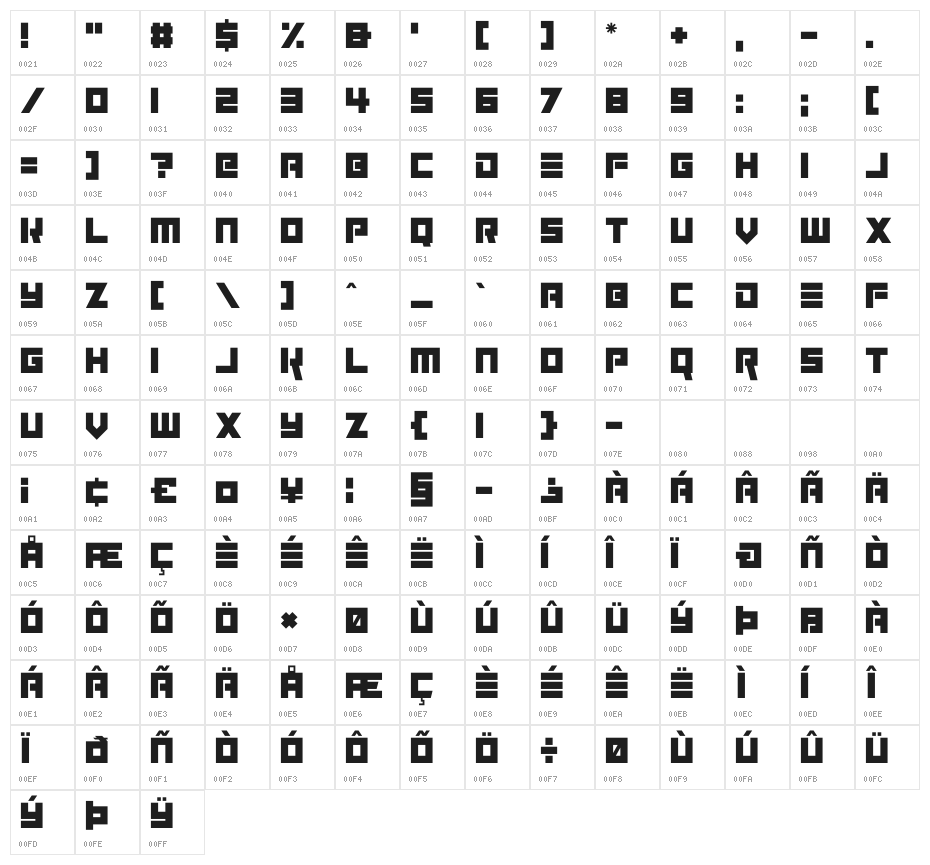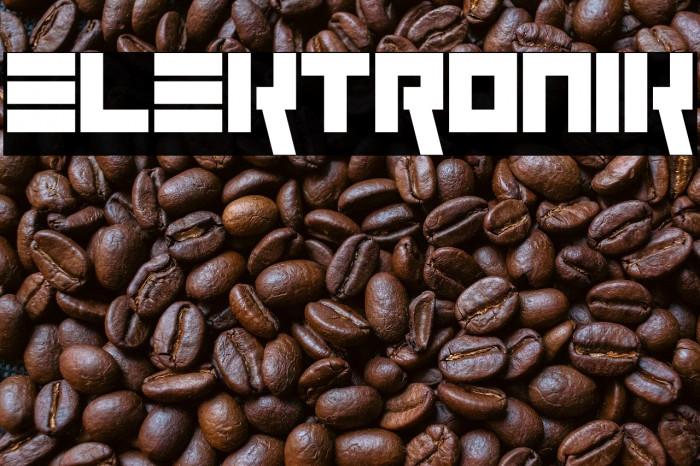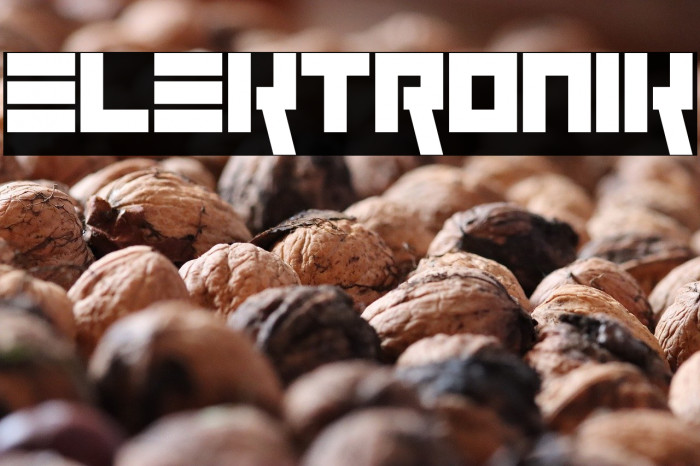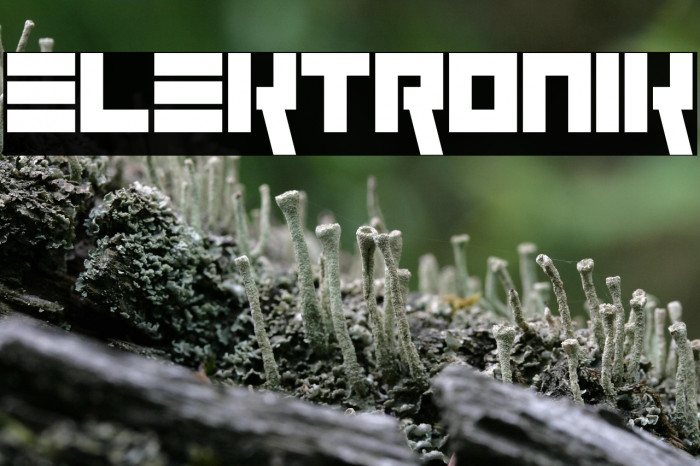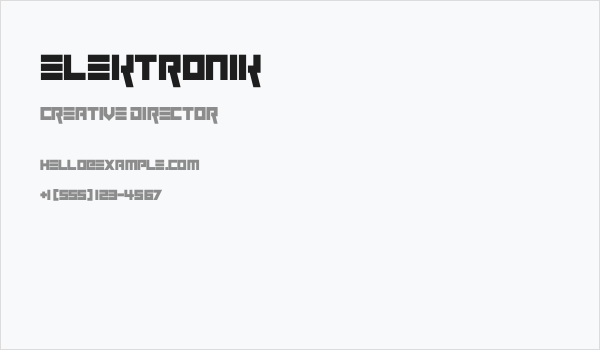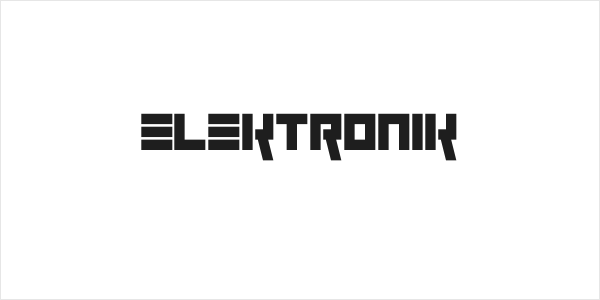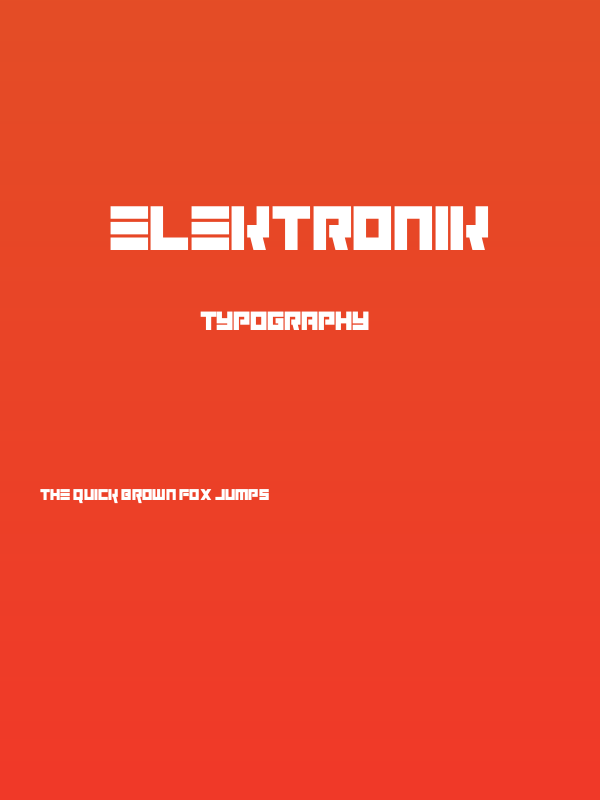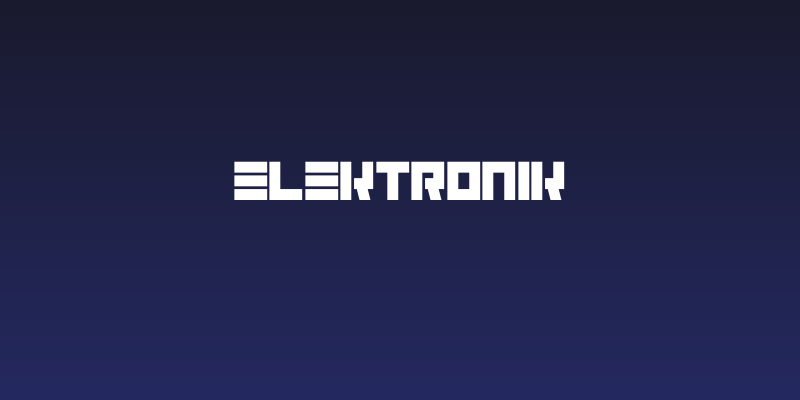
Elektronik Font
Elektronik Description
This font features a bold, geometric design with a futuristic and digital aesthetic. The characters are constructed with sharp angles and straight lines, giving it a blocky and robust appearance. The uppercase and lowercase letters maintain a consistent style, with minimal differentiation in height, enhancing its uniformity. The numerals and special characters follow the same angular and solid design, ensuring a cohesive look across all glyphs. This font's strong presence and modern style make it ideal for projects that require a technological or industrial feel.
| Proposed Projects | Ideal for technology branding, video game titles, sci-fi movie posters, and digital interfaces. |